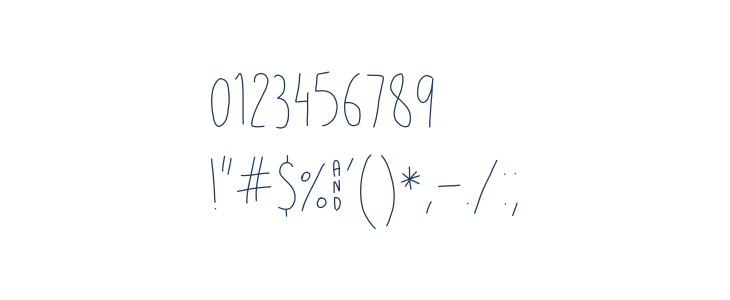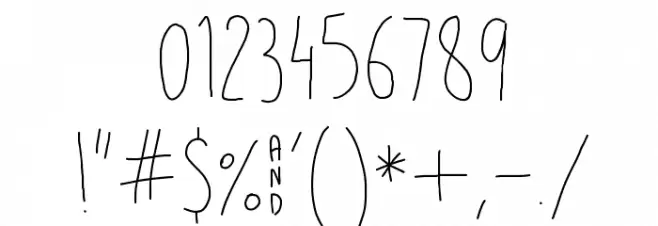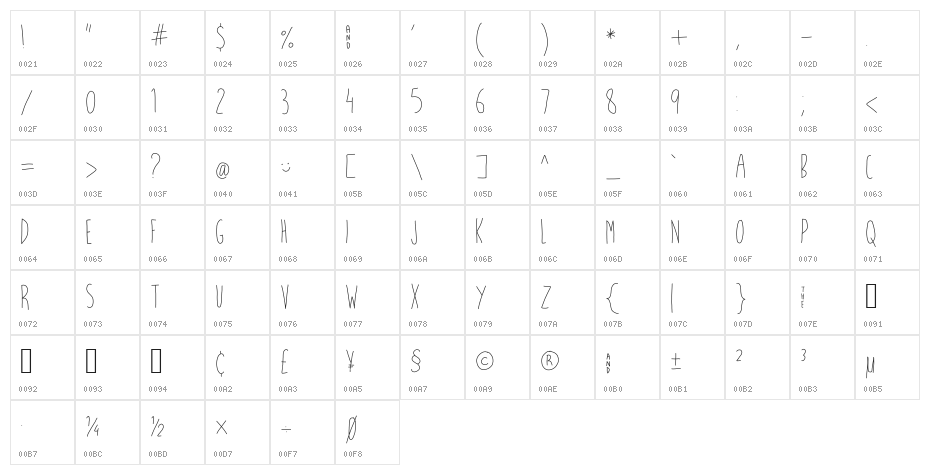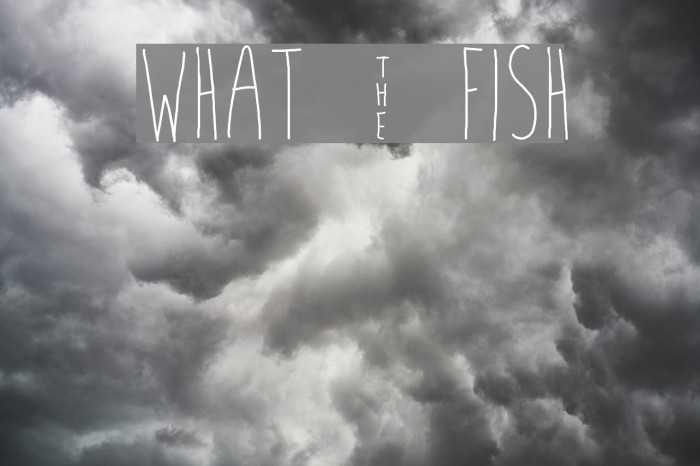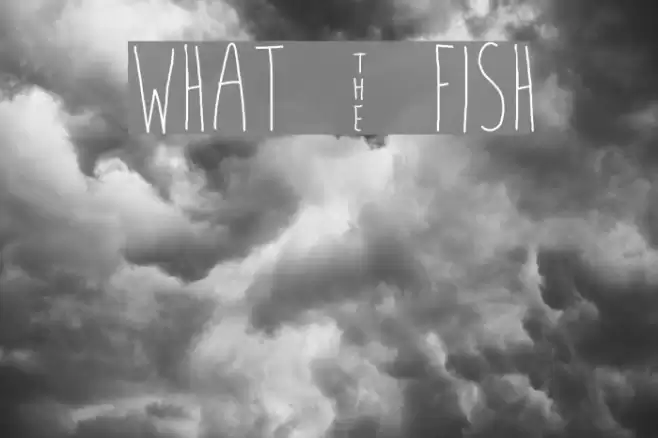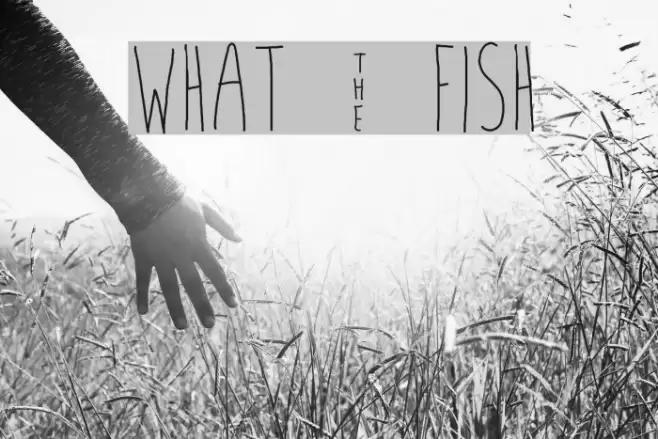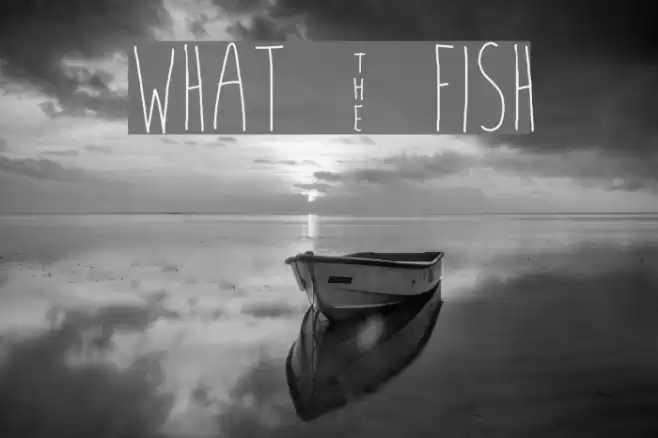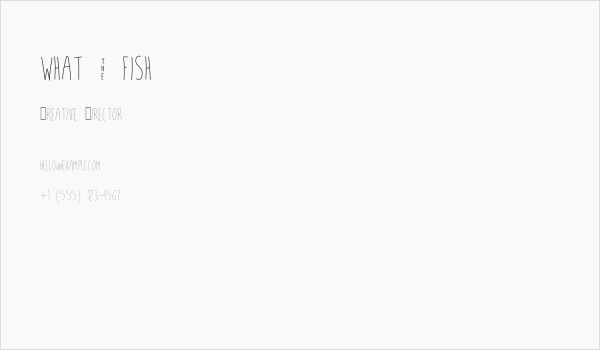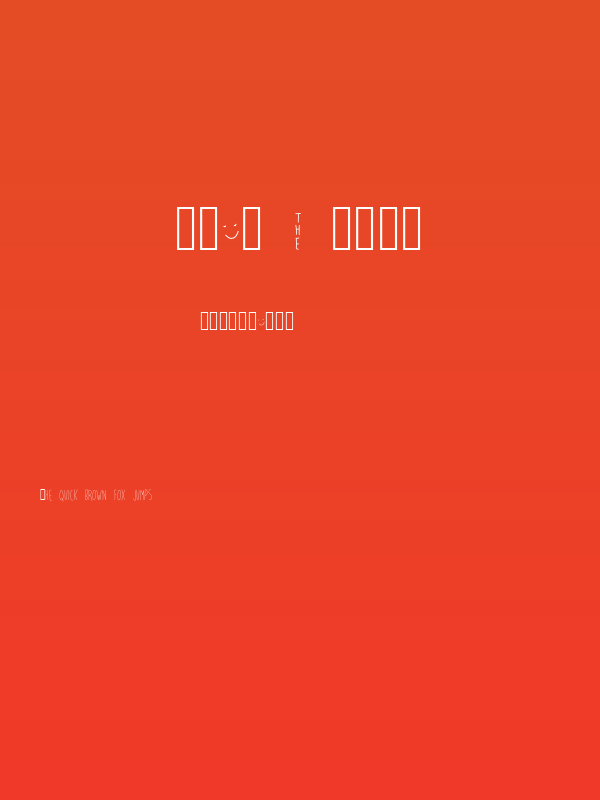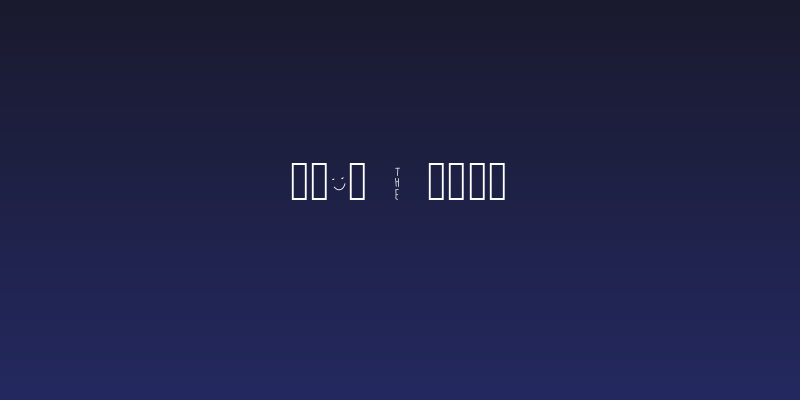
what ~ fish Font
what ~ fish Description
This font features a playful and whimsical handwritten style, characterized by tall, narrow letters with a slight irregularity that adds charm and personality. The uppercase letters are elongated and slender, while the lowercase letters maintain a consistent height, creating a harmonious flow. The numerals are similarly styled, with a quirky touch that complements the overall aesthetic. Special characters are included, maintaining the same playful tone. This font is ideal for projects that require a personal, informal touch, such as greeting cards, children's books, or creative branding.
| Use Case | Headlines, Creative projects, Informal text |
| Proposed Projects | Ideal for greeting cards, children's books, creative branding, and informal invitations. |